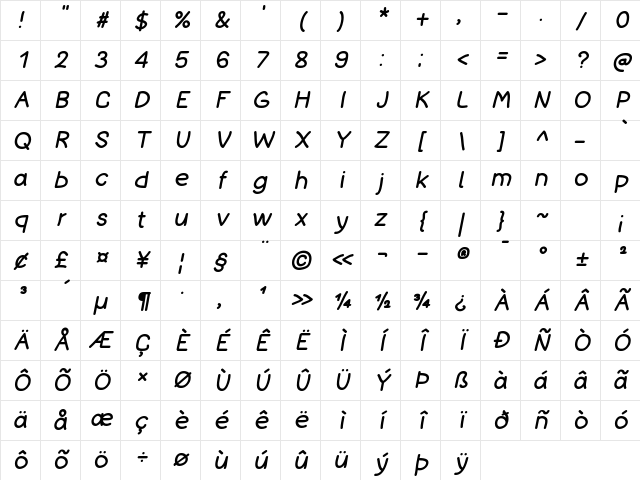
Bad Comic Italic
Designer: GGBot
Design Context for Bad Comic
Bad Comic has an approachable, lighthearted character - its loose, expressive forms are well-suited to children's content, casual branding, and fun-first design. The slanted form adds forward momentum and visual energy.
Font Pairing: Pairs well with a rounded or humanist sans for body copy, maintaining the friendly tone without relying on Bad Comic to carry extended reading.
Pro Tip: Use Bad Comic at larger display sizes where its expressive character can land. Pair with a clean, simple sans for body copy to maintain readability.